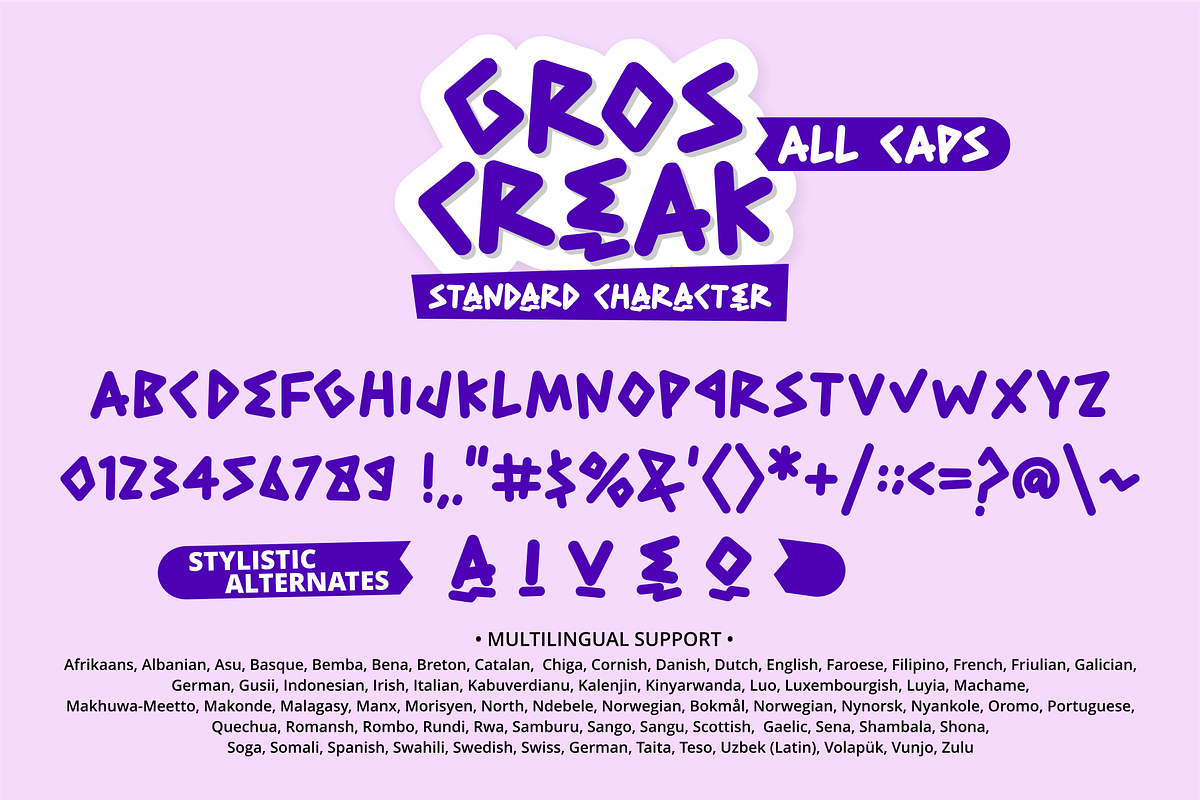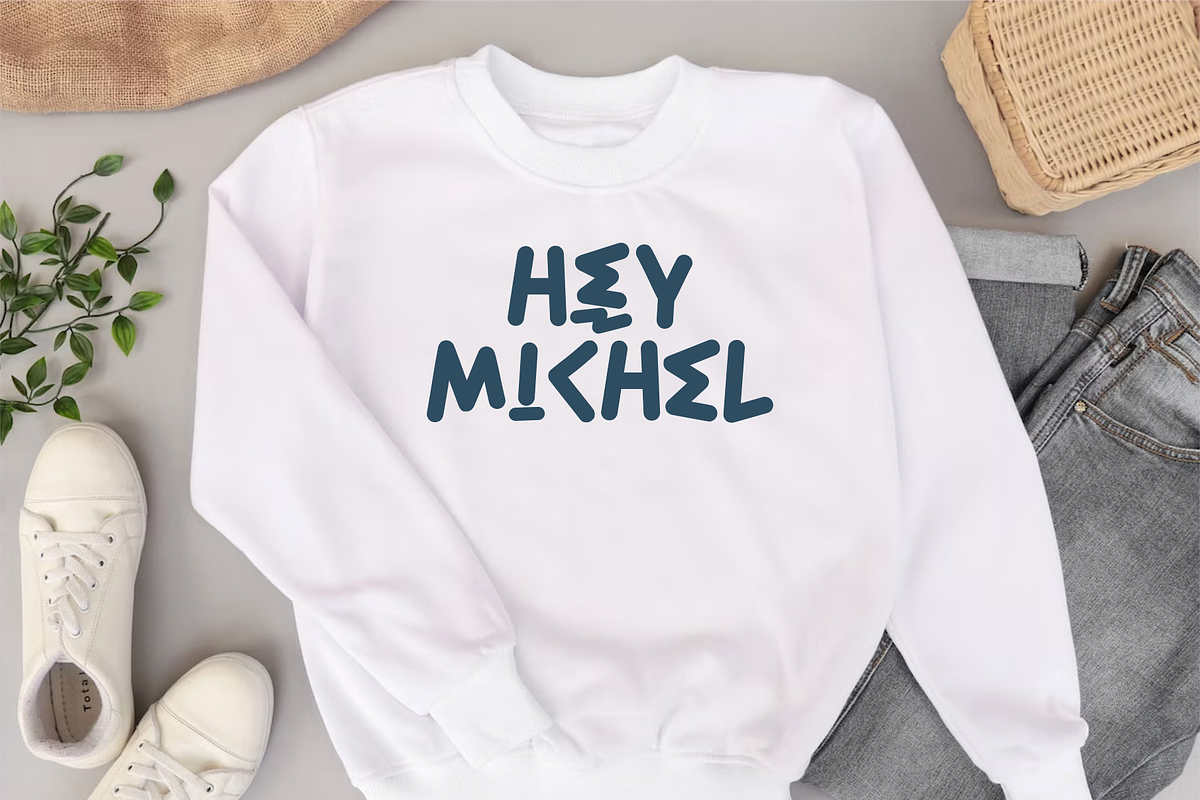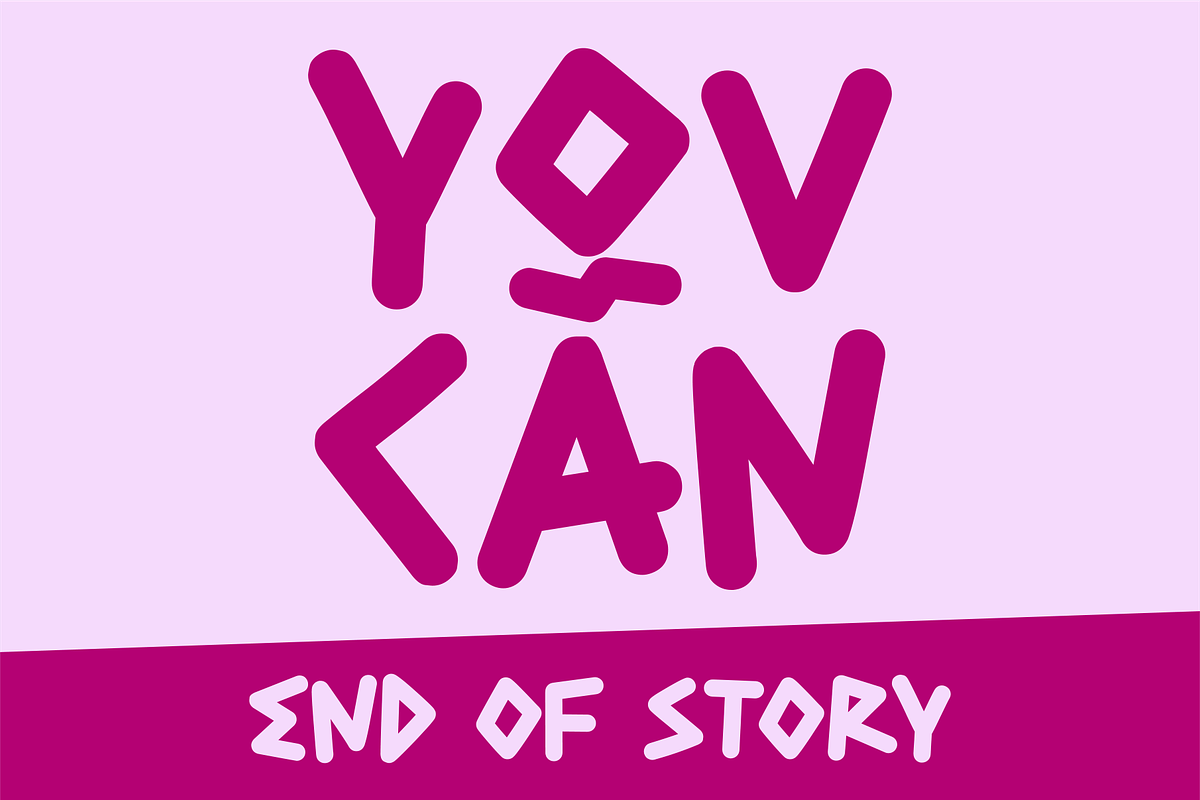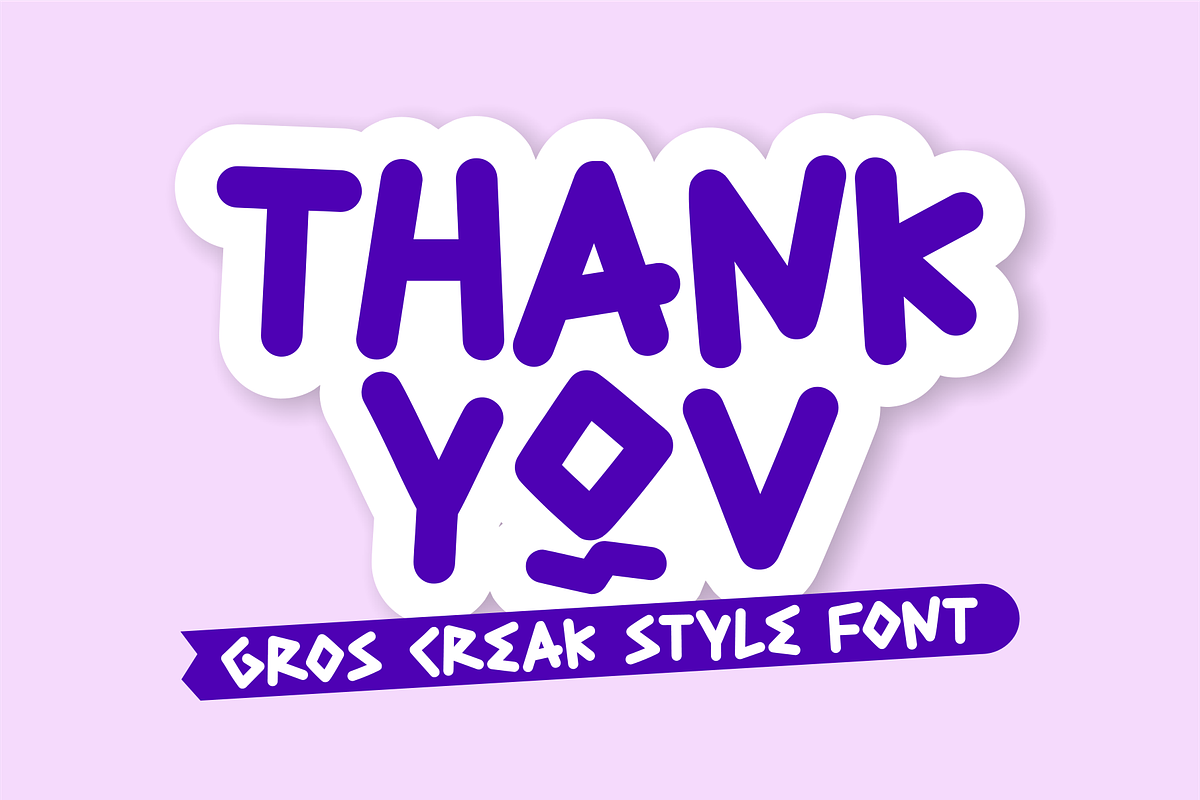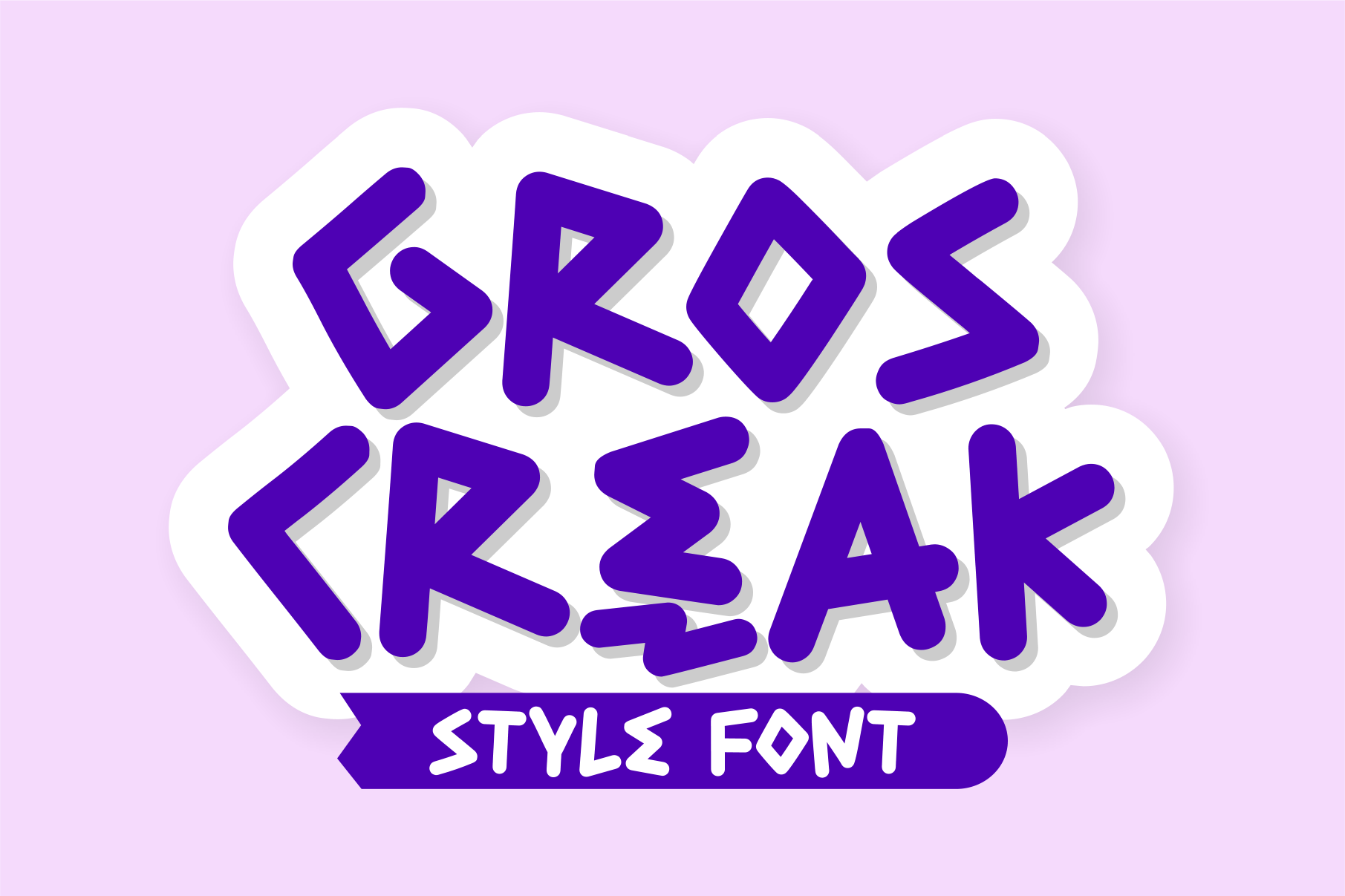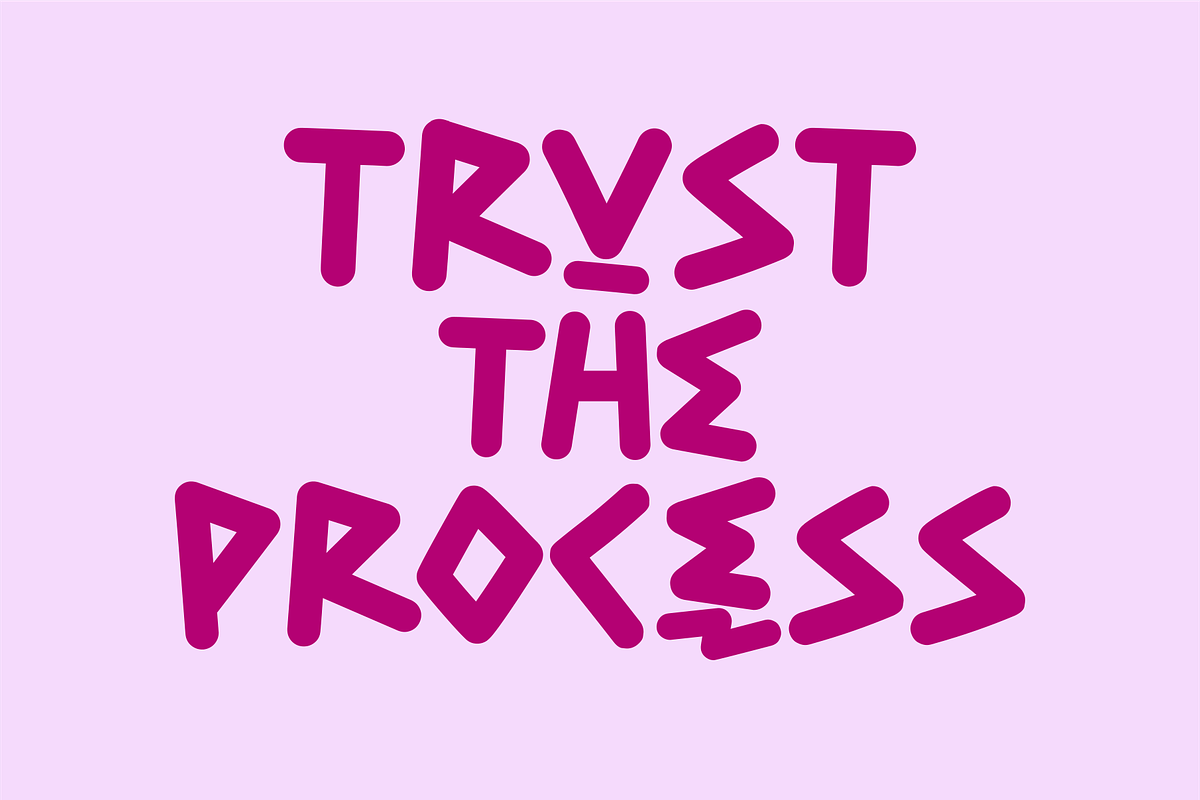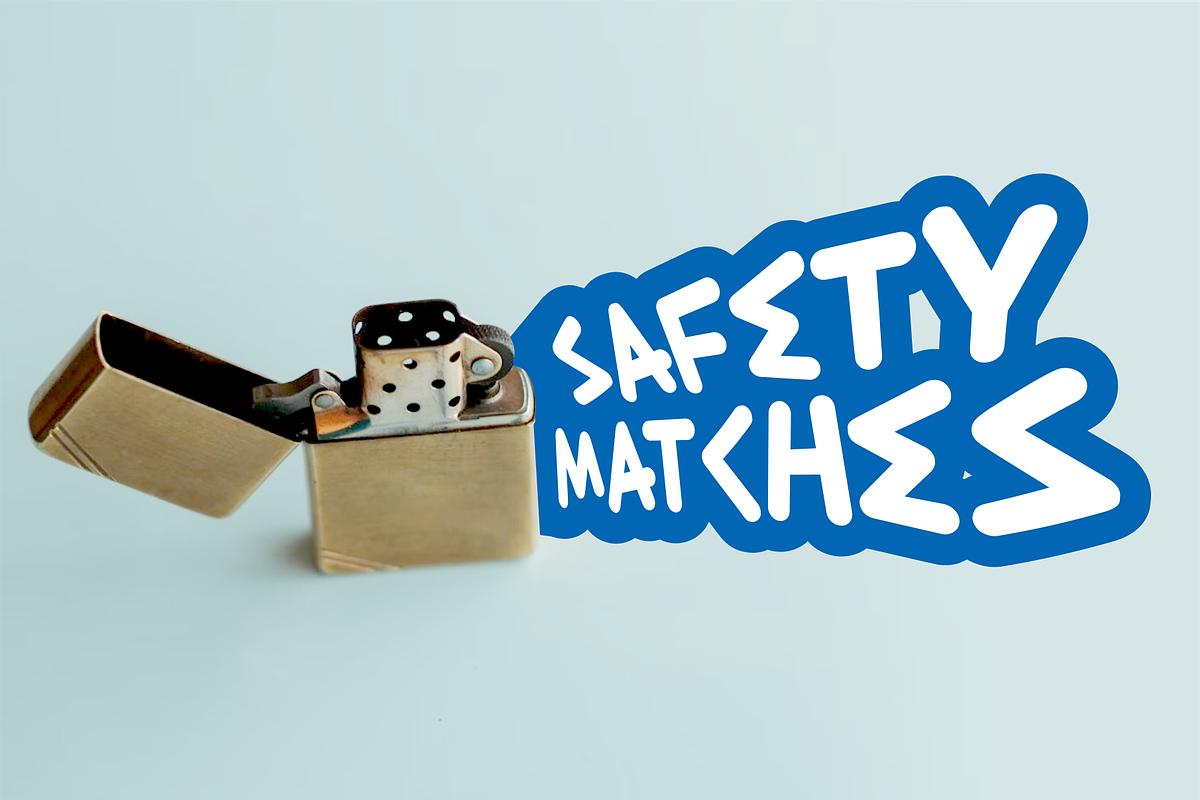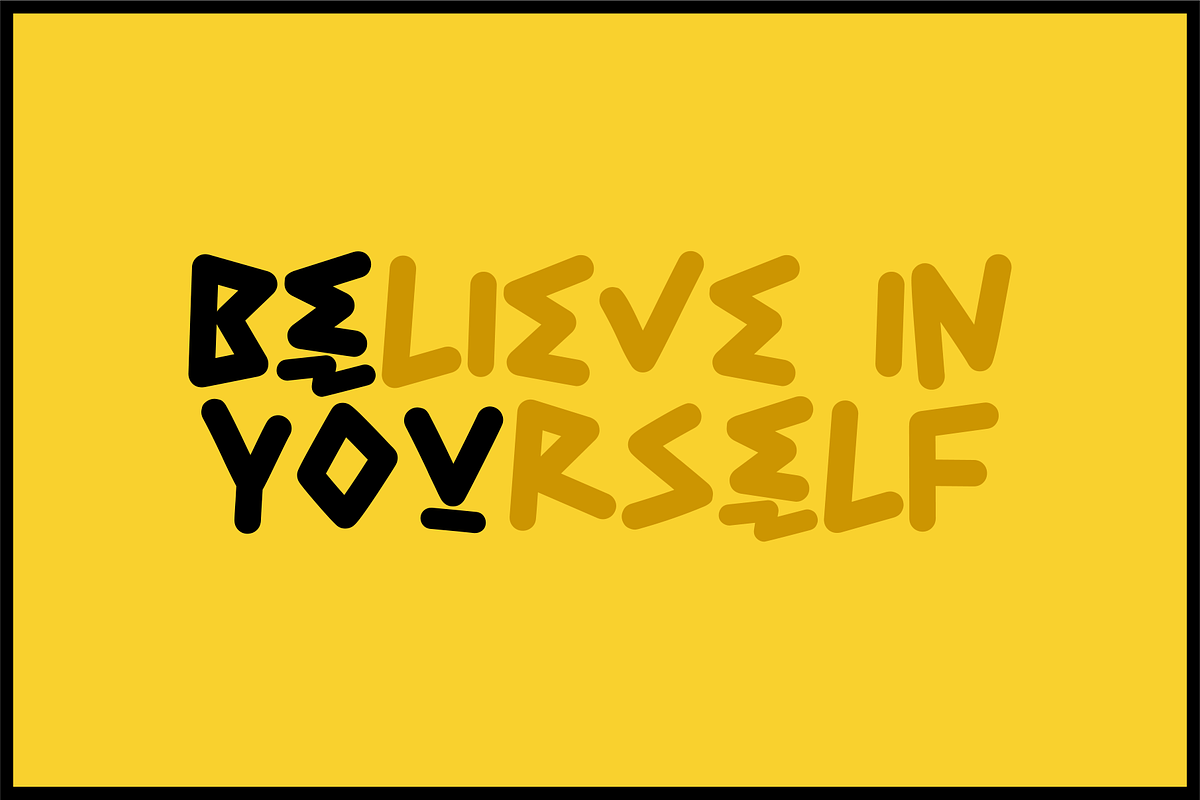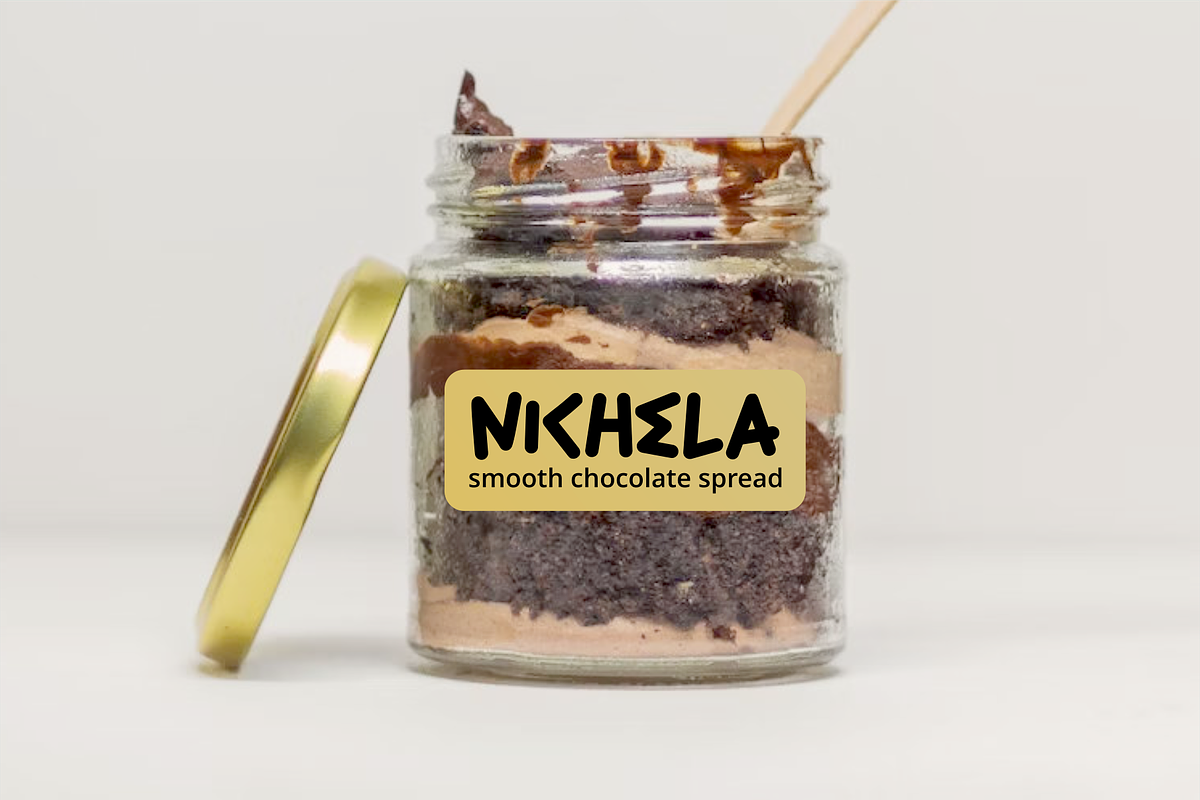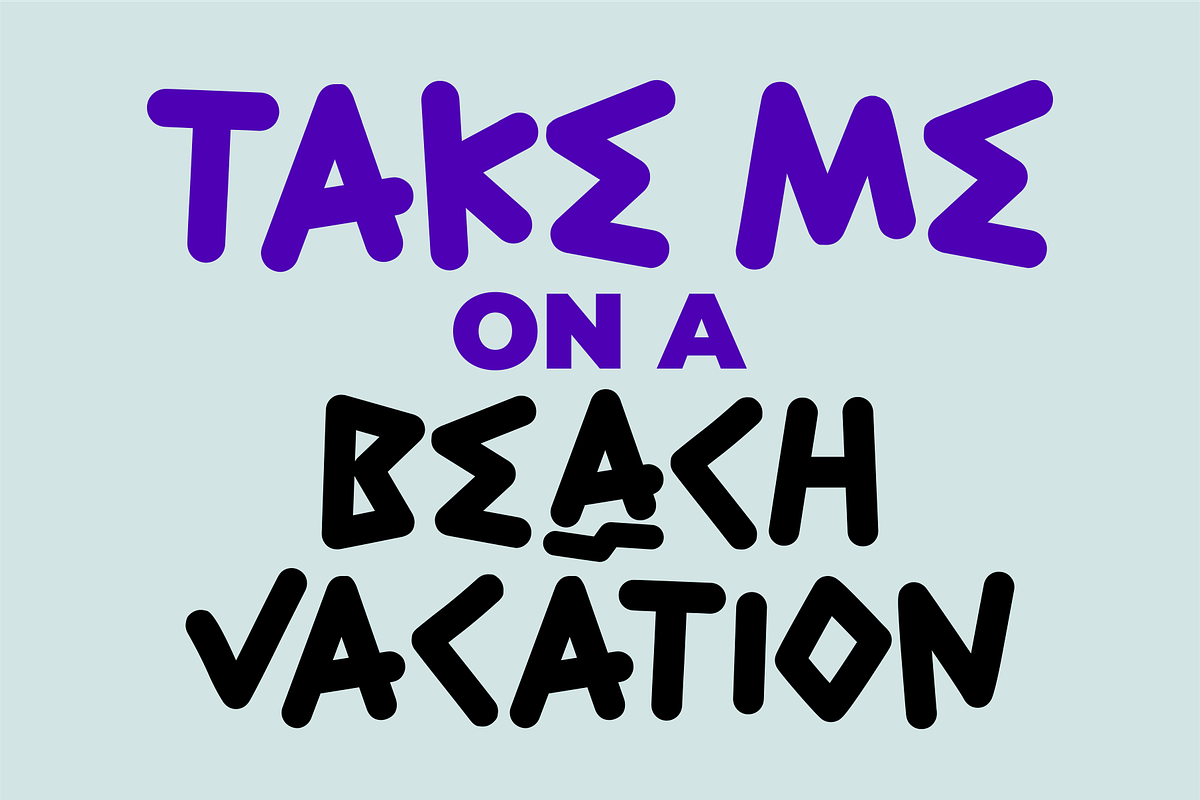
Gros Creak Font
Gros Creak Font is a cute and chic script font. Great for kids designs, and more. Each letter has a unique touch that will make your designs look fun! This font is perfect for craft projects, decorations, farmhouse signs, posters, t-shirts, and more. Have fun with this beautiful font and explore its endless variations.